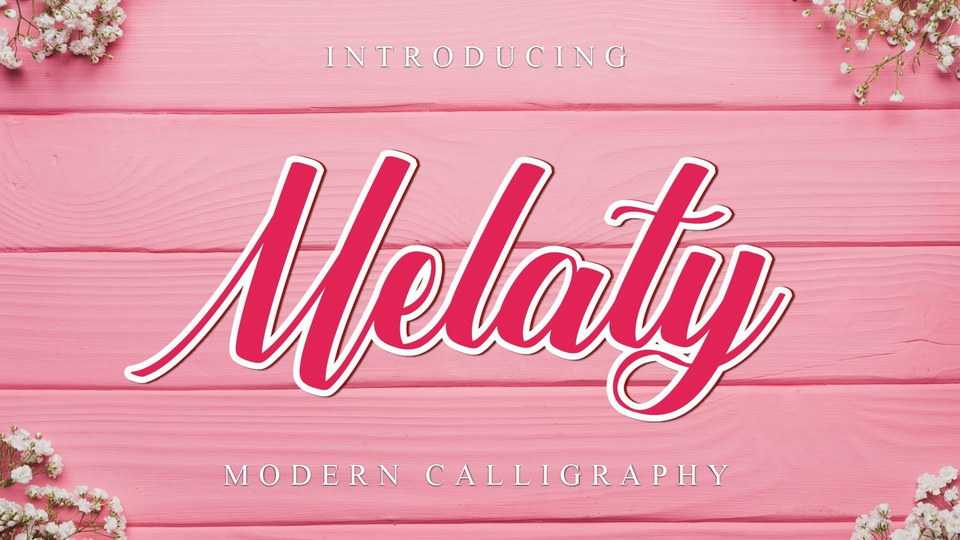
Download Melaty font, a beautiful modern script typeface. melaty looks lovely on a variety of designs requiring a personalized style, such as wedding invitations, thank you cards, weddings, greeting cards, logos and so on.